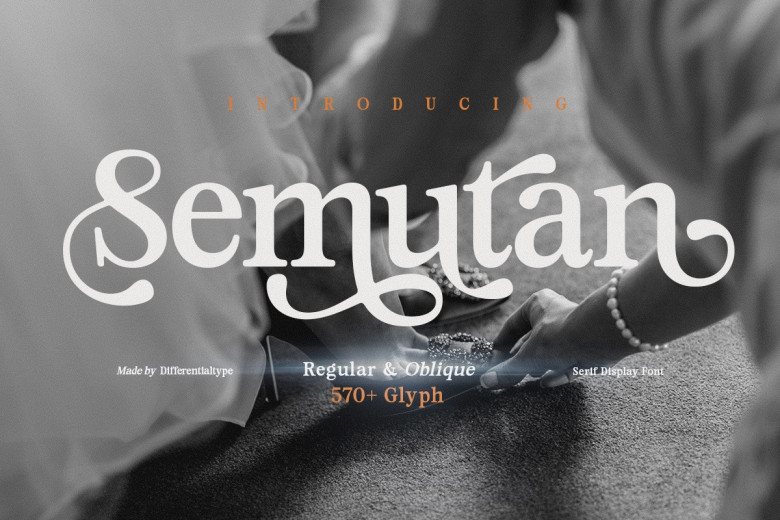
Semutan Font
Semutan brings with it the feel of fine quality a serif font in which smooth lines and crisp design meet minimalism As the semutan font is highly flexible, it can become striking title text or readable body writing Its adaptability means that Semutan brings immense value to any project, becoming the first choice for product branding and decorative font logos at weddings to intricate fonts nature photographers use For digital art creatives, using the Semutan font introduces a further note of visual appeal and raises the overall aesthetic standard of their work
Semutan Serif Font